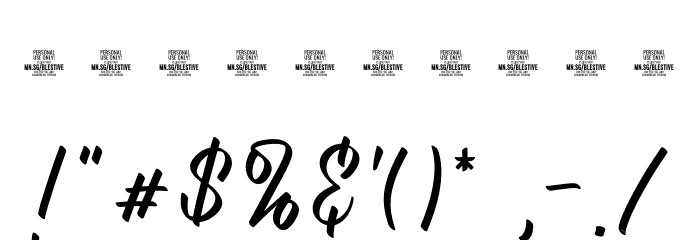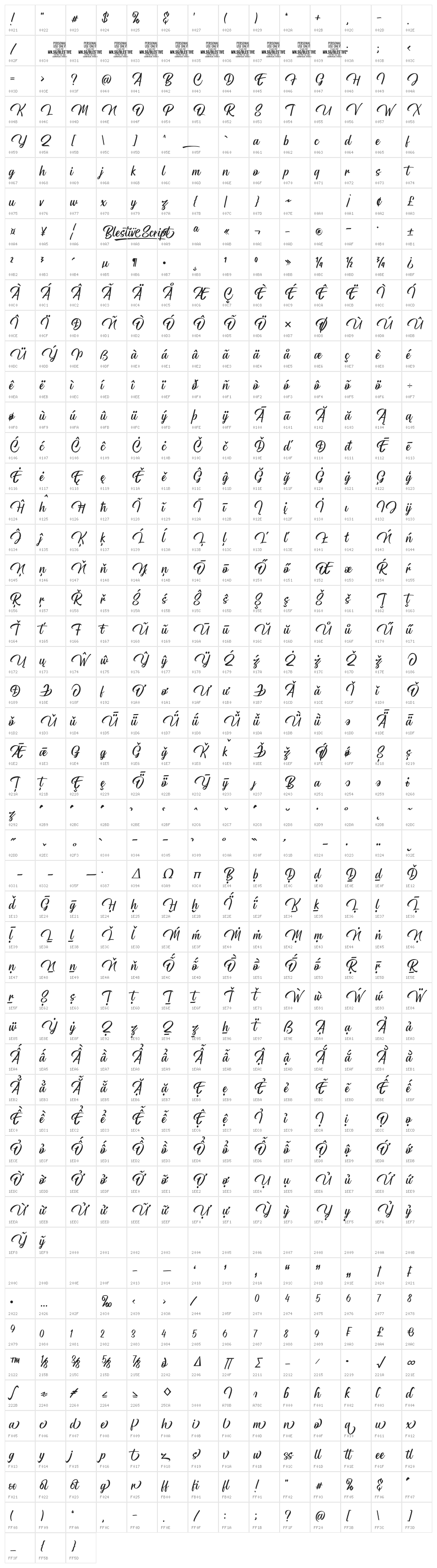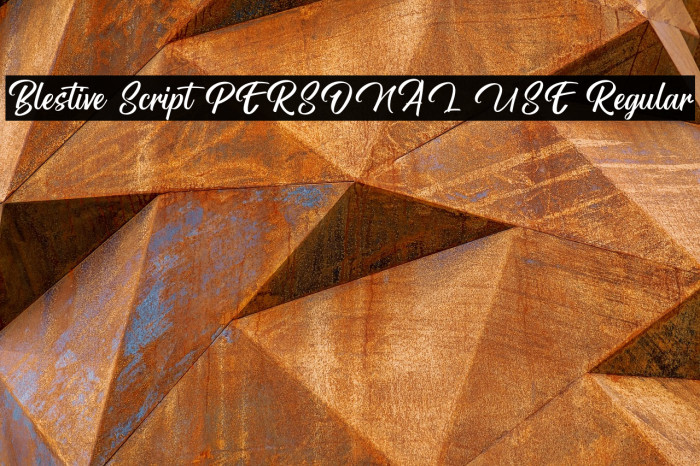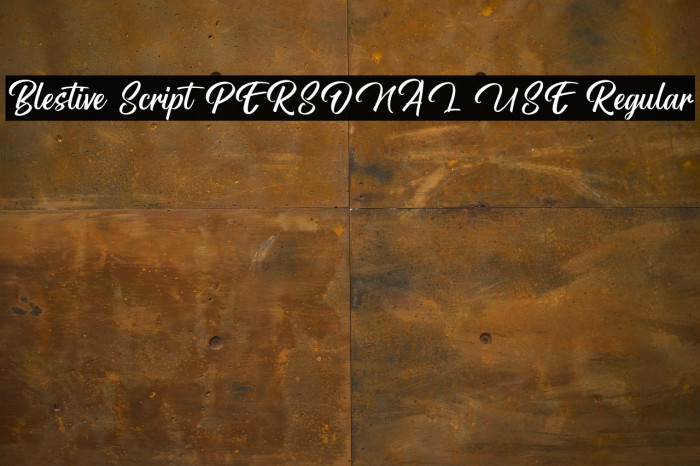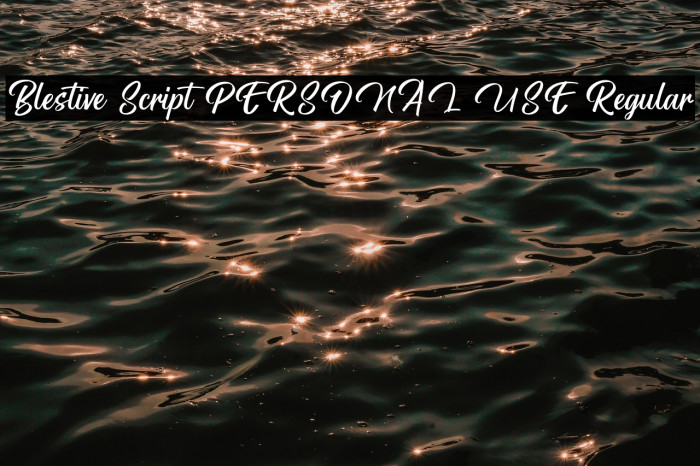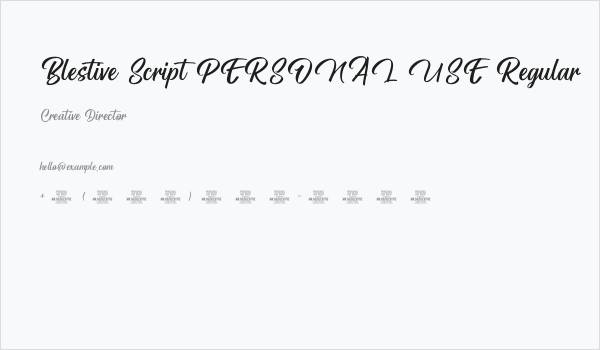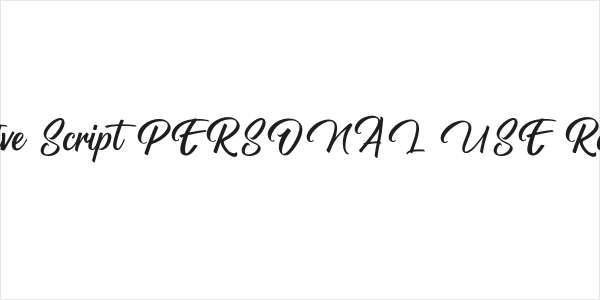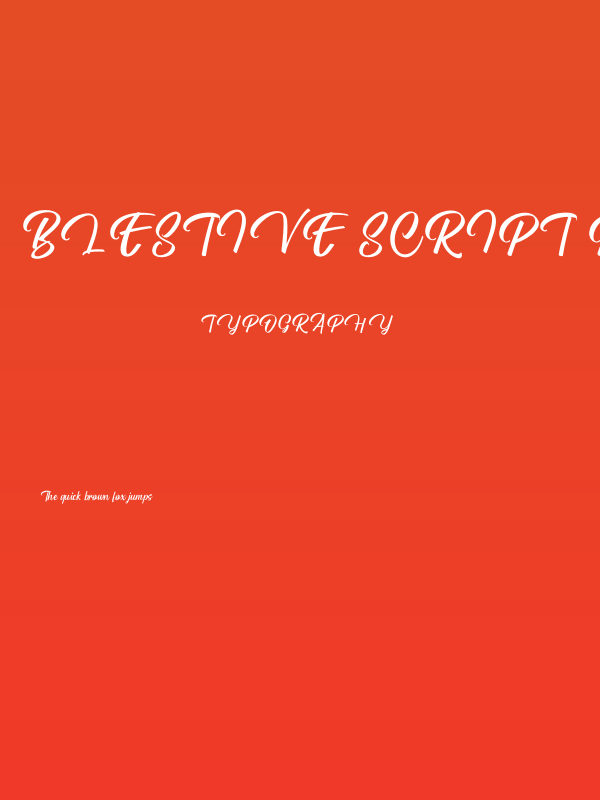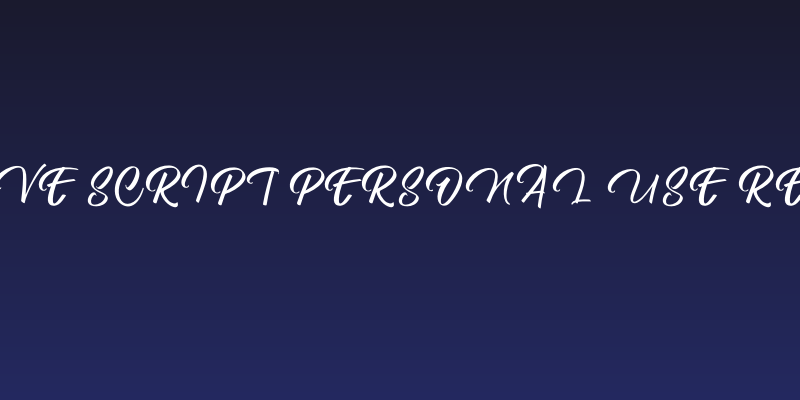
Blestive Script PERSONAL USE Regular Font
Blestive Script PERSONAL USE Regular Description
This script font exudes elegance and fluidity, characterized by its smooth, flowing strokes and cursive style. The uppercase letters are slightly more ornate, with sweeping curves and loops that add a touch of sophistication. The lowercase letters maintain a consistent flow, enhancing readability while retaining a stylish appearance. The numerals and special characters are crafted with the same attention to detail, ensuring a cohesive look across all elements. This font is ideal for projects that require a personal, handwritten touch, such as invitations, greeting cards, and branding materials.
| Proposed Projects | Ideal for wedding invitations, greeting cards, branding, and logos. |